13 Best Independence Day Font Bundles for Commercial Use in 2026
Looking for the perfect patriotic font bundle for your next 4th of July project? I’ve spent way too much time browsing patriotic fonts for t-shirts, Cricut crafts, Etsy listings, and seasonal promo graphics over the past few summers, and honestly… not all “patriotic fonts” are actually usable once you start designing with them.
Some look great in previews but become unreadable on shirts. Others feel too cheesy or overly distressed once printed. The good ones usually strike a balance: bold enough to feel festive, but still clean enough for real commercial projects.
If you’re creating Independence Day designs for products, social media, invitations, print-on-demand shops, or client work, these are some of the best patriotic font bundles worth checking out right now.
13 Best Independence Day Font Bundles for Commercial Use
1. Captain Strong Font
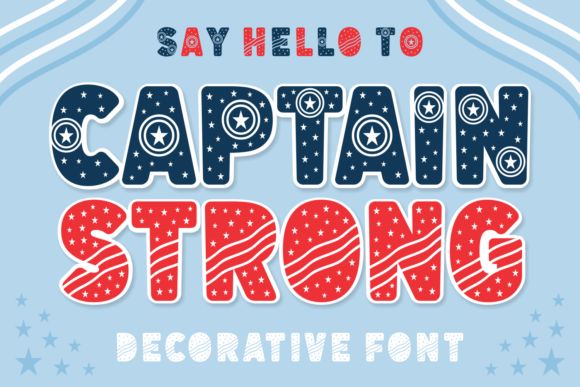
Captain Strong instantly gives off that classic American flag energy. The stars-and-stripes detailing is bold without becoming impossible to read, which honestly surprised me because a lot of heavily themed fonts struggle with readability.
It works especially well for:
- T-shirts
- Posters
- Event graphics
- Book covers
- Large display text
The thick lettering holds up nicely on apparel mockups too. Some patriotic fonts look thin once printed, but this one keeps its shape.
2. Christmas Soldier Font
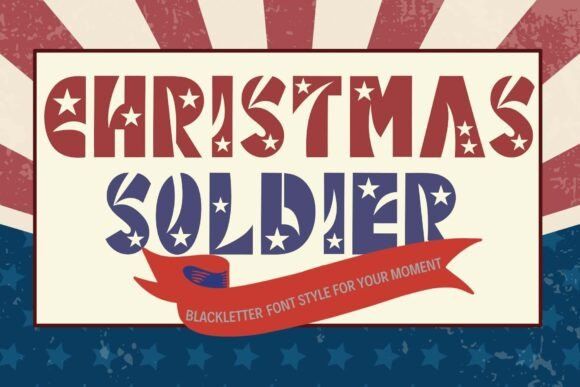
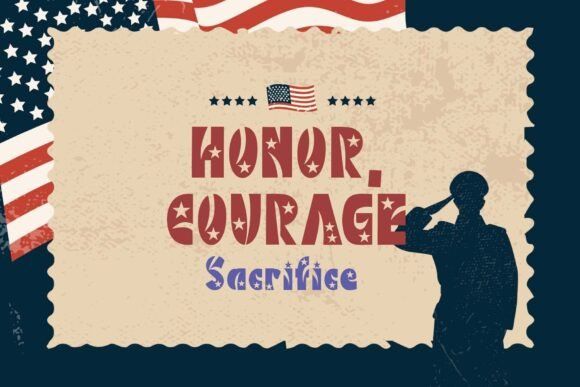
The name throws people off a little, but Christmas Soldier actually works incredibly well for patriotic designs.
It has a blackletter-inspired style with star details built into the characters, giving it more of a vintage Americana look than a typical July 4th font.
Best for:
- Event posters
- Patriotic banners
- Social graphics
- Branding
- Greeting cards
I’d probably avoid using it for long text blocks, but for headlines? Really solid.
3. Best Hero Font
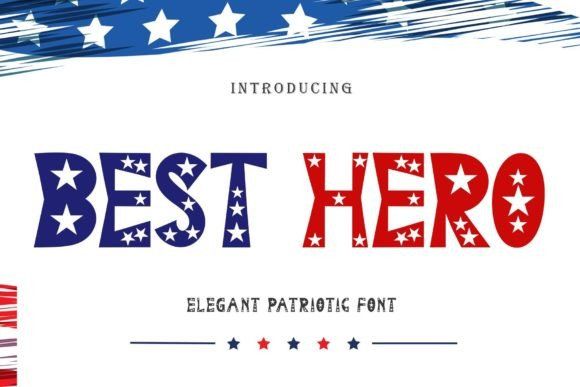
Best Hero feels cleaner and more modern than a lot of patriotic display fonts.
The decorative stars inside the lettering add enough personality without making the font feel gimmicky. That balance makes it easier to use across different kinds of commercial projects.
Great for:
- Promotional graphics
- Magazine-style covers
- Stickers
- Branding
- Seasonal campaigns
It also stays readable at smaller sizes, which isn’t always true with decorative holiday fonts.
4. Brave America Font
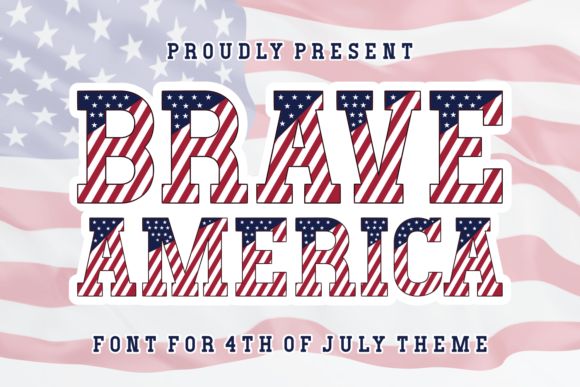
This one leans heavily into classic Independence Day styling.
Brave America uses flag-inspired striping and bold decorative details that work really well for apparel designs and print-on-demand products. It has that slightly rugged Americana feel that tends to perform well on Etsy around June and July.
Best uses:
- T-shirts
- Invitations
- Greeting cards
- Logos
- Apparel branding
I could easily see this on vintage-style faded navy shirts with distressed textures.
5. Stars and Stripes Font
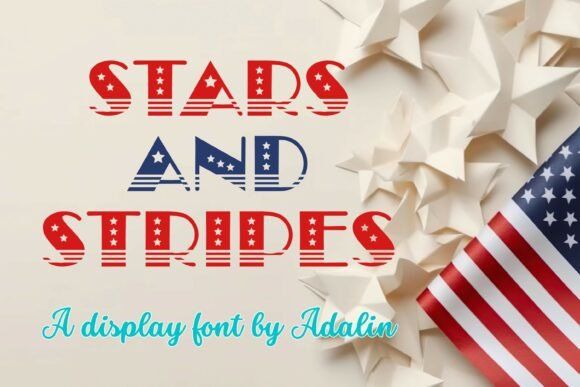
Stars and Stripes is one of the more versatile patriotic fonts on this list.
Instead of going overboard with decorations, it keeps things relatively clean while still feeling unmistakably American-themed.
Perfect for:
- Wall art
- Cricut projects
- Event flyers
- Printables
- Apparel graphics
This is the kind of font that pairs really nicely with minimalist sans-serif fonts underneath.
6. Fireworks Font
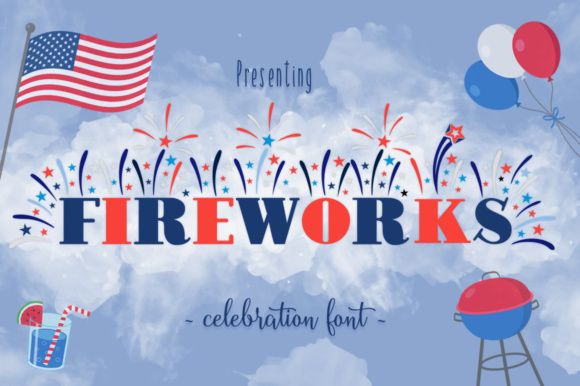
If you want something festive and playful, Fireworks Font definitely stands out.
The decorative fireworks details immediately create that July 4th celebration vibe. It’s more themed than some of the other fonts here, but for the right projects, that works really well.
Best for:
- Party invitations
- Event signage
- Kids’ apparel
- Celebration graphics
- Social media posts
I’ve noticed fonts like this tend to perform especially well for classroom printables and family-oriented designs.
7. 4th of July Font by Kalilaart
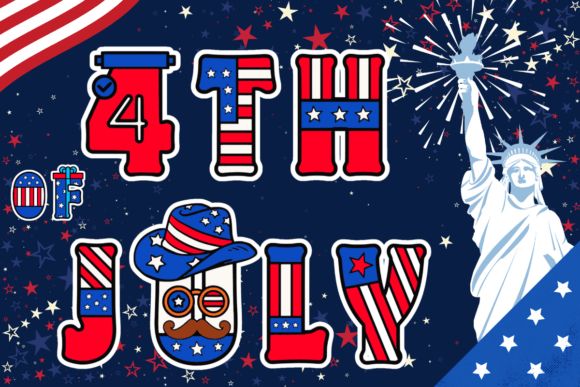
This one has a colorful, playful look that feels very craft-friendly.
The patriotic stars and striped details make it perfect for DIY projects, especially if you’re designing for Cricut or printable decorations.
Great for:
- Scrapbooking
- Stickers
- Classroom decorations
- Kids’ invitations
- DIY crafts
Definitely more fun and casual than vintage.
8. 4th of July Font by Nyla.studio
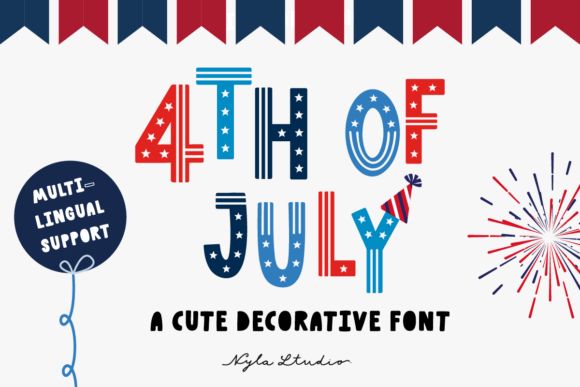
This font has a younger, trendier style compared to traditional Americana fonts.
It works really well for modern merchandise designs where you still want patriotic energy without making everything feel overly rustic or distressed.
Perfect for:
- Packaging
- Mugs
- Stickers
- Greeting cards
- Social graphics
I could see this fitting nicely into trendy Etsy branding.
9. Patriotic USA Font
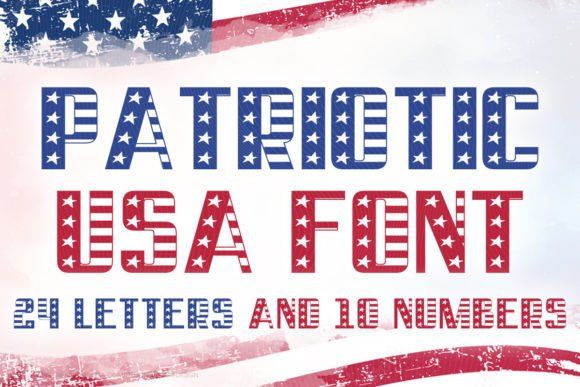
Patriotic USA Font is built for big, bold headlines.
The flag-inspired structure gives it strong visual impact, especially on large-format designs like posters and shirts.
Recommended for:
- Posters
- Headlines
- Signage
- Apparel
- Print-on-demand products
This one definitely looks best at larger sizes where the decorative details can breathe a little.
10. Americano Font
One thing I genuinely like about Americano is the flexibility.
It includes both decorated and plain versions, which makes layering typography much easier. That’s super useful when you’re building more polished commercial graphics instead of simple one-line designs.
Excellent for:
- Cricut crafts
- Sublimation projects
- Vinyl decals
- Invitations
- T-shirt businesses
Having multiple font styles in the same family ends up being more practical than people expect.
11. Star 4th July Font
This font leans playful and cheerful rather than vintage.
The star-filled lettering gives it a fun seasonal feel that works nicely for small-business marketing and lighter holiday designs.
Best uses:
- Greeting cards
- Stationery
- Banners
- Social media graphics
- Mugs
It feels very Pinterest-friendly, honestly.
12. 4th July Font by KtwoP
This one has a more rugged, distressed Americana aesthetic.
The striped details combined with vintage-style wear textures make it especially strong for masculine apparel designs or outdoor-themed branding.
Great for:
- SVG projects
- Vinyl decals
- T-shirt graphics
- Memorial Day promotions
- Labor Day campaigns
A lot of rustic patriotic shirt designs use this kind of texture style because it prints well on darker fabrics.
13. 4th July Font by AnningArts
This font includes both regular and outline versions, which gives you way more creative flexibility than a standard decorative font.
You can layer the styles together for posters or modern typography layouts without needing extra effects.
Perfect for:
- Posters
- Invitations
- Merchandise
- Patriotic quotes
- Modern branding
The outline version especially works well for trendy retro-inspired designs.
These fonts can certainly help you capture the spirit of the holiday, perhaps even inspiring some fantastic 19 Best Retro Patriotic T-Shirt Designs for Independence Day.
Best Ways to Use Patriotic Font Bundles
T-Shirt Designs
Patriotic shirts are huge every summer, especially on Etsy and print-on-demand marketplaces.
Bold display fonts tend to work best because thinner decorative fonts can disappear once printed on fabric.
A lot of successful July 4th shirt designs are actually pretty simple:
big typography, distressed texture, minimal graphics.
Cricut & Silhouette Projects
Independence Day fonts are perfect for:
- Vinyl decals
- Wooden signs
- Tumblers
- Scrapbooking
- DIY decor
One thing I’ve learned the hard way: super detailed fonts don’t always cut cleanly on smaller vinyl projects. Simpler bold lettering usually saves time.
Social Media Graphics
Seasonal content moves fast around holidays.
A strong patriotic font can instantly make a promo graphic feel timely without needing complicated design elements.
Especially for:
- Instagram promos
- Pinterest graphics
- Facebook banners
- Event announcements
Print-on-Demand Products
These fonts work especially well for:
- Mugs
- Tote bags
- Stickers
- Posters
- Hats
- Apparel
Holiday-based POD products can spike quickly around June, so reusable seasonal fonts are honestly a smart investment if you design regularly.
Why Commercial Use Fonts Matter
Using commercially licensed fonts protects you legally if you’re selling products or creating client work.
That includes things like:
- Physical merchandise
- Digital downloads
- Advertising graphics
- POD products
- Client branding projects
It’s one of those boring details nobody thinks about until they start selling designs consistently.
Then it matters a lot.
If you're looking for even more options to make your designs pop, explore our curated list of 17 Best 4th of July Fonts for Patriotic Designs.
A good patriotic font can completely change the feel of an Independence Day design.
Some work better for rugged vintage shirts. Others fit modern stickers, invitations, or Cricut crafts. The trick is finding fonts that still feel usable after the holiday aesthetic wears off.
Out of all the styles here, I probably lean toward the more versatile Americana fonts that can work beyond just July 4th.
Still, if you’re building seasonal graphics for 2026, these Independence Day font bundles are some of the strongest options for designers, Etsy sellers, and creative businesses right now.
Can I use these Independence Day fonts commercially?
Yes, the featured fonts include commercial-use licensing for merchandise, branding, and products.
Which patriotic fonts work best for Cricut?
u003cstrongu003eAmericanou003c/strongu003e, u003cstrongu003eStars and Stripesu003c/strongu003e, and u003cstrongu003eCaptain Strongu003c/strongu003e are especially good for Cricut and Silhouette projects.
What’s the best patriotic font for t-shirts?
u003cstrongu003eBrave Americau003c/strongu003e and u003cstrongu003ePatriotic USA Fontu003c/strongu003e both work extremely well for bold apparel graphics.